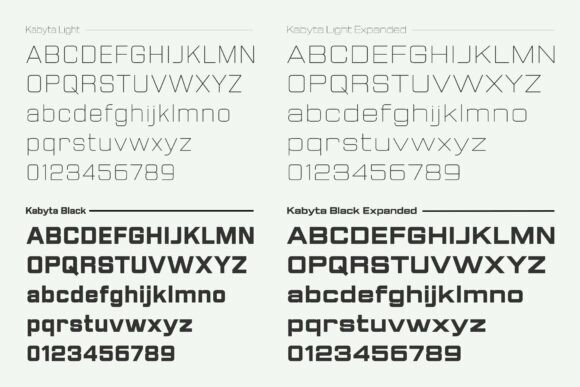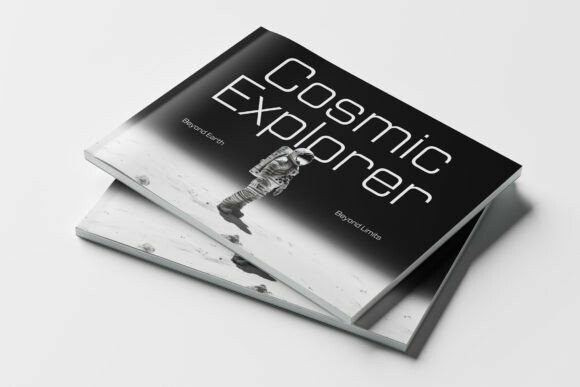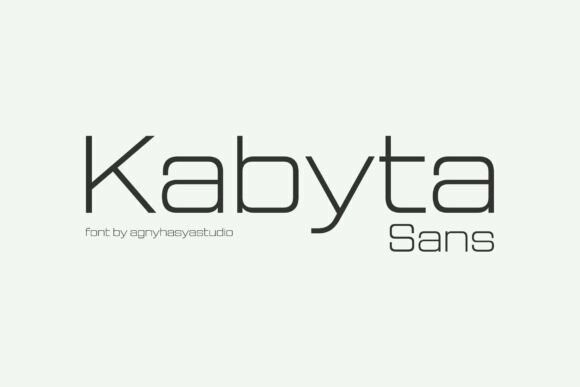
Kabyta Font Family
Designer: agnyhasyastudio
Kabyta Font Family is a sans-serif typeface family known for its modern and clean design. It has a simple and minimalist style, making it look professional and easy to read. Perfect for creating sleek and clear designs.